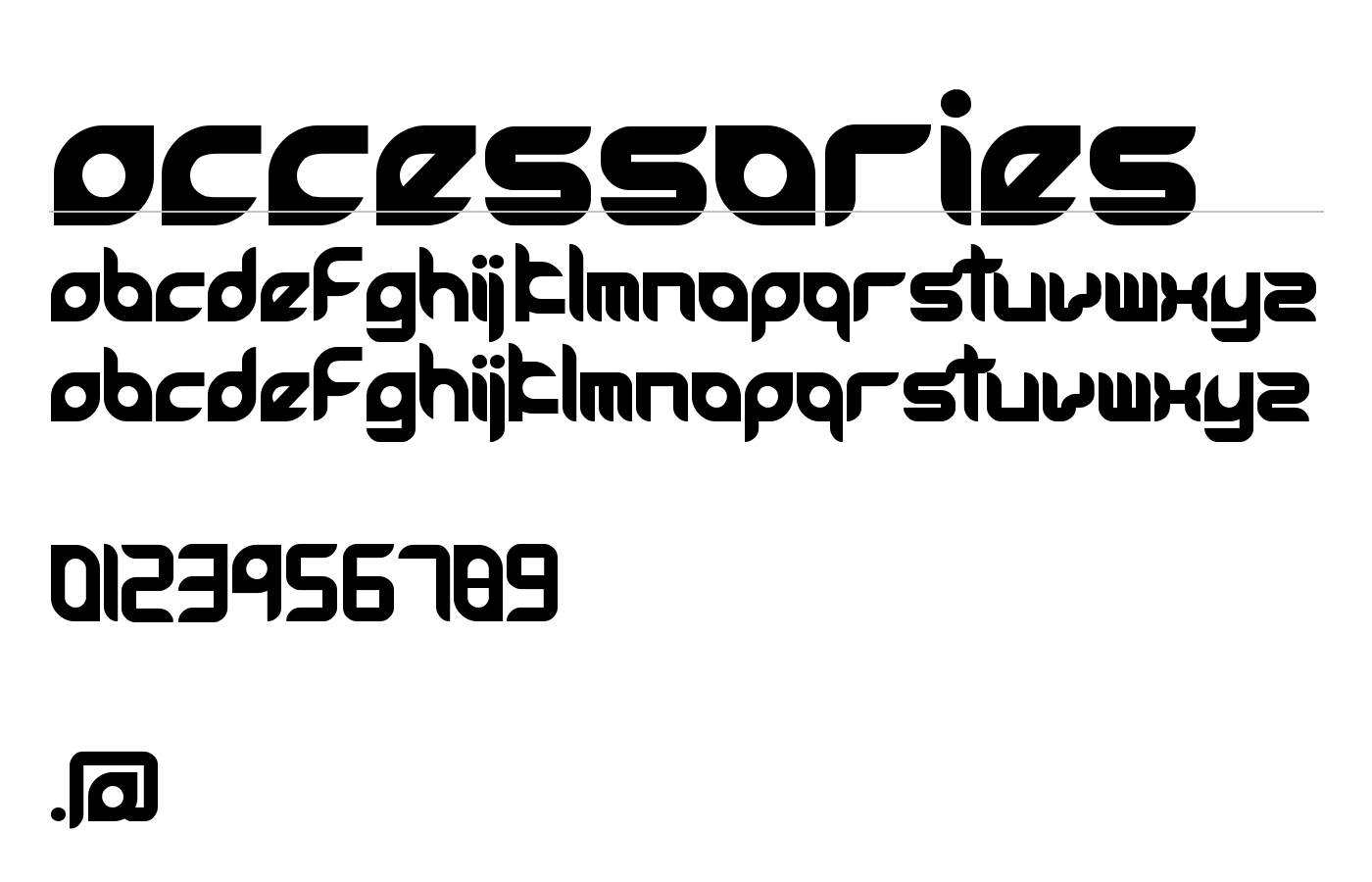
Accessories Font is a bold, futuristic sans serif with a unique geometric style that blends rounded and sharp edges for a modern, tech-inspired look. Its thick strokes and compact letterforms create a strong visual presence, making it ideal for eye-catching headlines, logos, and branding that seek a contemporary, innovative vibe. This distinctive typeface works best in display settings where its quirky, digital personality can stand out and engage an audience.
accessories Font
About accessories Font